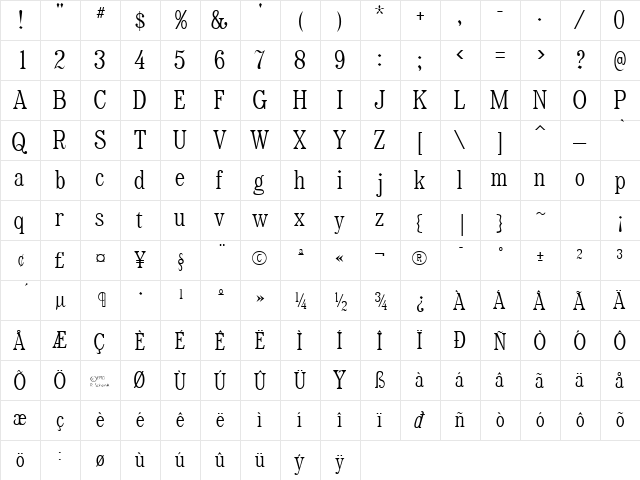
RataczakCond Plain
Design Context for RataczakCond Typeface
RataczakCond takes a measured approach to typography — its balanced proportions and neutral character make it a reliable workhorse for both digital and print work. Its narrow stance lets it pack a punch even in space-constrained designs.